The game's version of the Bellisa Plumilla font has full support for letters with accent used in Central Europe.
The only exception is the letter "ť" (187) which is being displayed without the "hook" as a normal "t" (84).
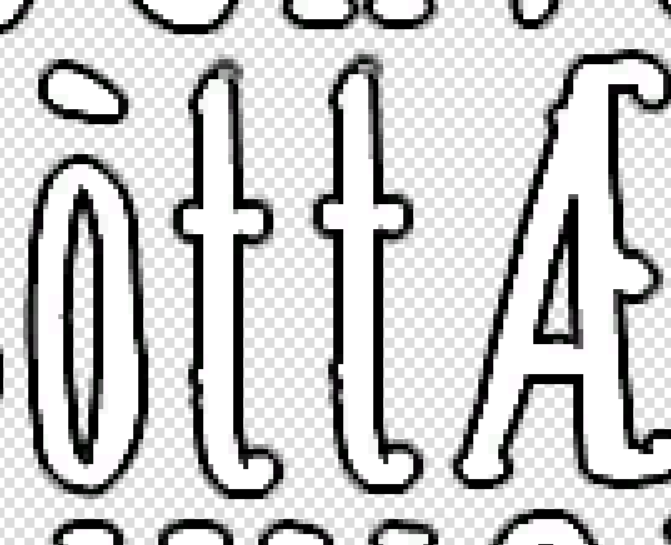
This is a screenshot from the font.tex file. As you can see the character "t" is there duplicated and used for both of those.
Therefore I am sure that the second one was meant to have the "hook" and correctly represent it's character.
Here is the fixed version where you can take at least some inspiration from.
Try to display the "ť" character in the game's chat for example (or just any other text widget using the Belisa Plumilla font).
Notice that it displays as the basic "t" without the correct accent.
This can lead to confusion on what did the author actually meant.